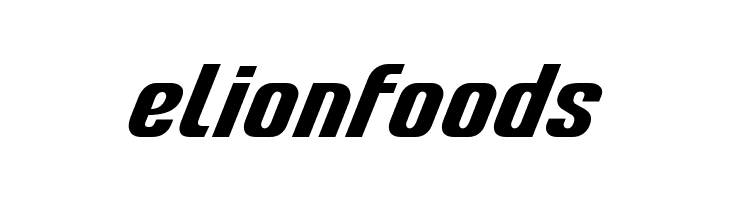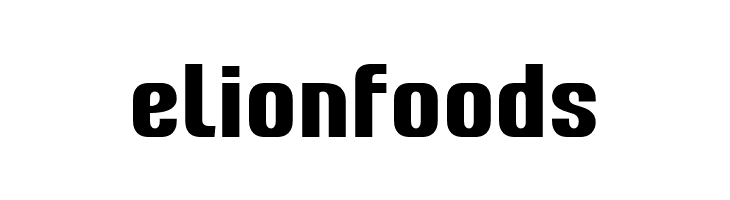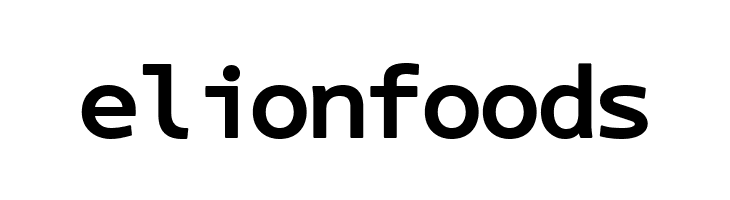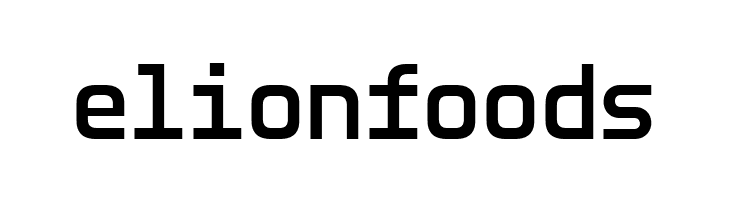
A bold, modern monospaced font with uniform character width and geometric design.
A bold, italicized monospaced font with a modern and sleek design.
A bold, geometric font with a modern, monospaced style.
A bold, rounded, and modern font with smooth curves and consistent stroke thickness.
A bold, modern font with strong, thick strokes and excellent readability.
A bold, modern typeface with thick, uniform strokes and slightly condensed letterforms.
A bold, modern font with strong geometric shapes and a uniform appearance.
A bold, italicized font with a modern, energetic style.
A bold, geometric font with a modern and impactful style.